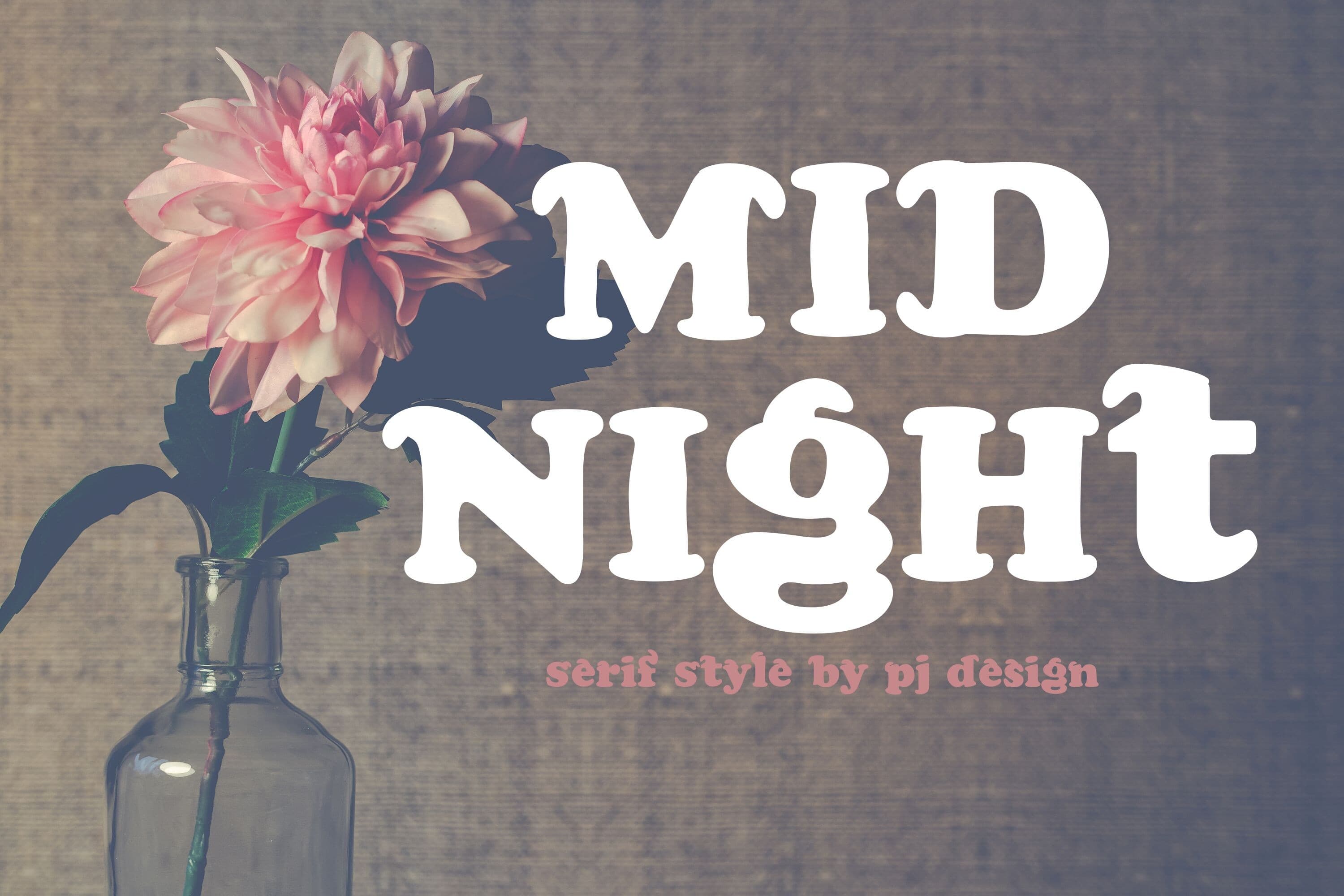
Unveil the Allure of Midnight Font: A Serif Gem for Luxurious Design In the ever-evolving world of typography, where each curve and line carries the weight of meaning, the Midnight Font emerges as a captivating choice within the Serif category. This ...